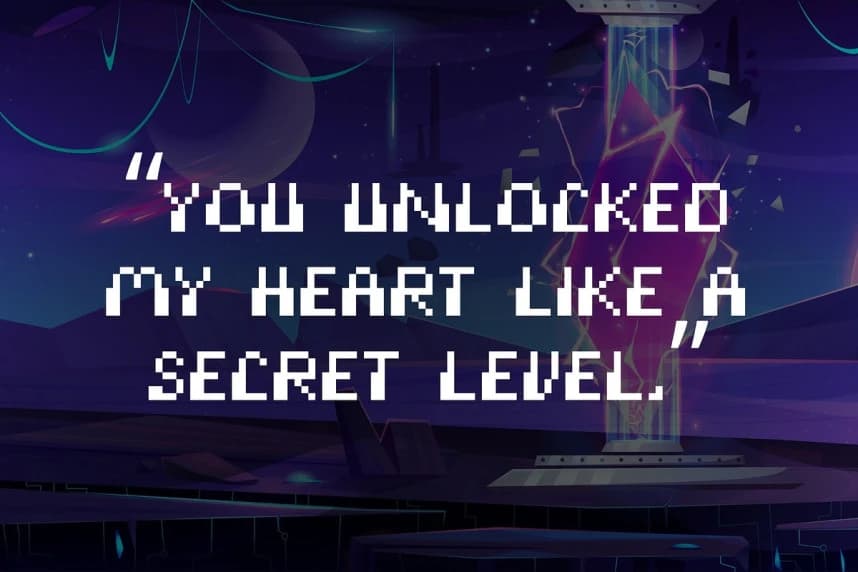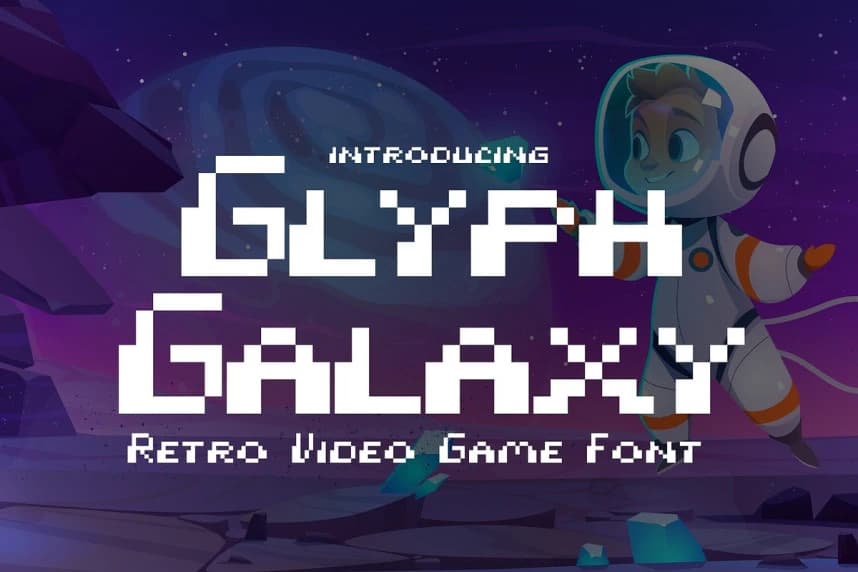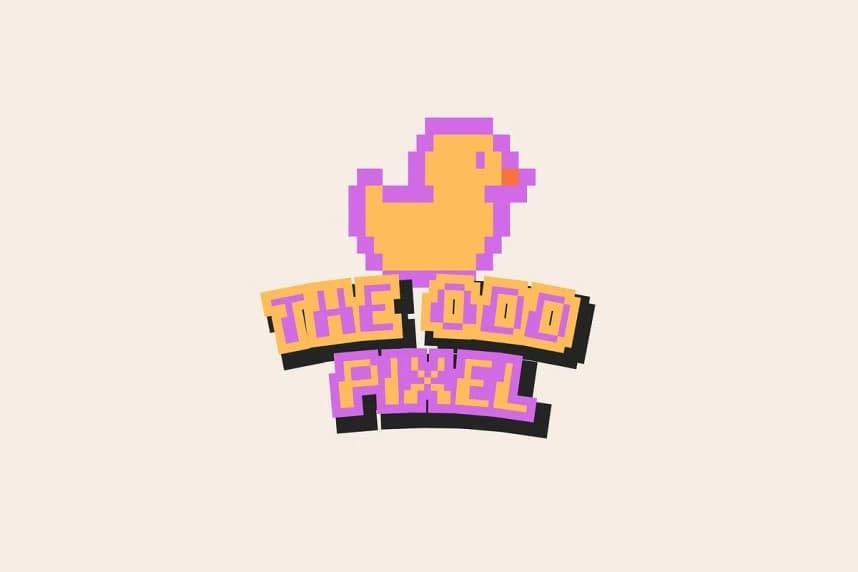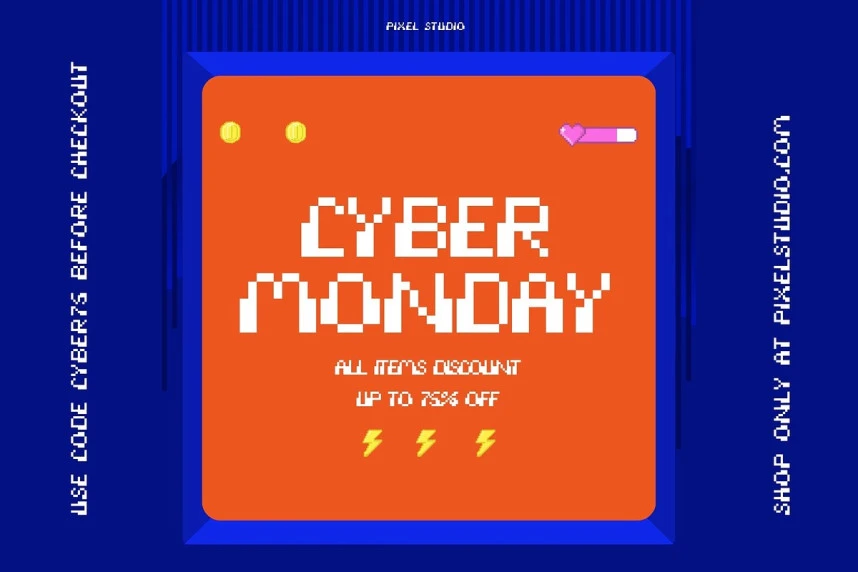
Glyph Galaxy Font is a retro-inspired 8-bit pixel font that captures the magic of classic video games and digital nostalgia. Designed with crisp square forms and authentic pixel precision, this typeface brings the charm of old-school arcade screens into modern creative projects.